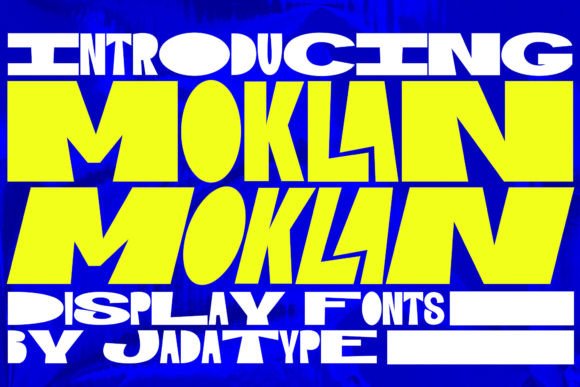
Unleash your creativity and make a bold statement with Moklan Font, the ultimate display font that exudes funkiness and playfulness. This all-caps font is a masterpiece crafted by jadatype, renowned for creating fonts that resonate with modern design aesthetics. Moklan's captivating style is perfect for logotypes, branding, social media posts, posters, advertisements, and any project that demands attention.
With Moklan Font, you'll have the power to transform your designs into eye-catching masterpieces. Its bold and playful characters will add a touch of uniqueness to your creations, making them stand out from the crowd. Whether you're a seasoned designer or just starting out, Moklan Font is the perfect choice for adding a touch of fun and personality to your work.
Immerse yourself in the world of Moklan Font and discover endless possibilities. Its versatility knows no bounds, making it suitable for a wide range of projects. From logotypes that command attention to branding that exudes personality, Moklan Font is the key to unlocking your creative potential. Unleash the power of Moklan Font today and let your designs shine brighter than ever before.